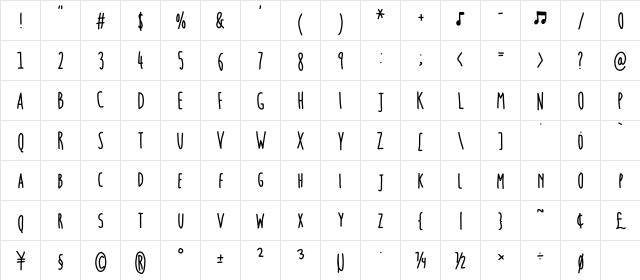
Hammers.and.Strings Medium
Design Context for Hammers.and.Strings Typeface
Hammers.and.Strings is a composed and adaptable typeface that performs quietly and consistently across a wide range of design contexts.